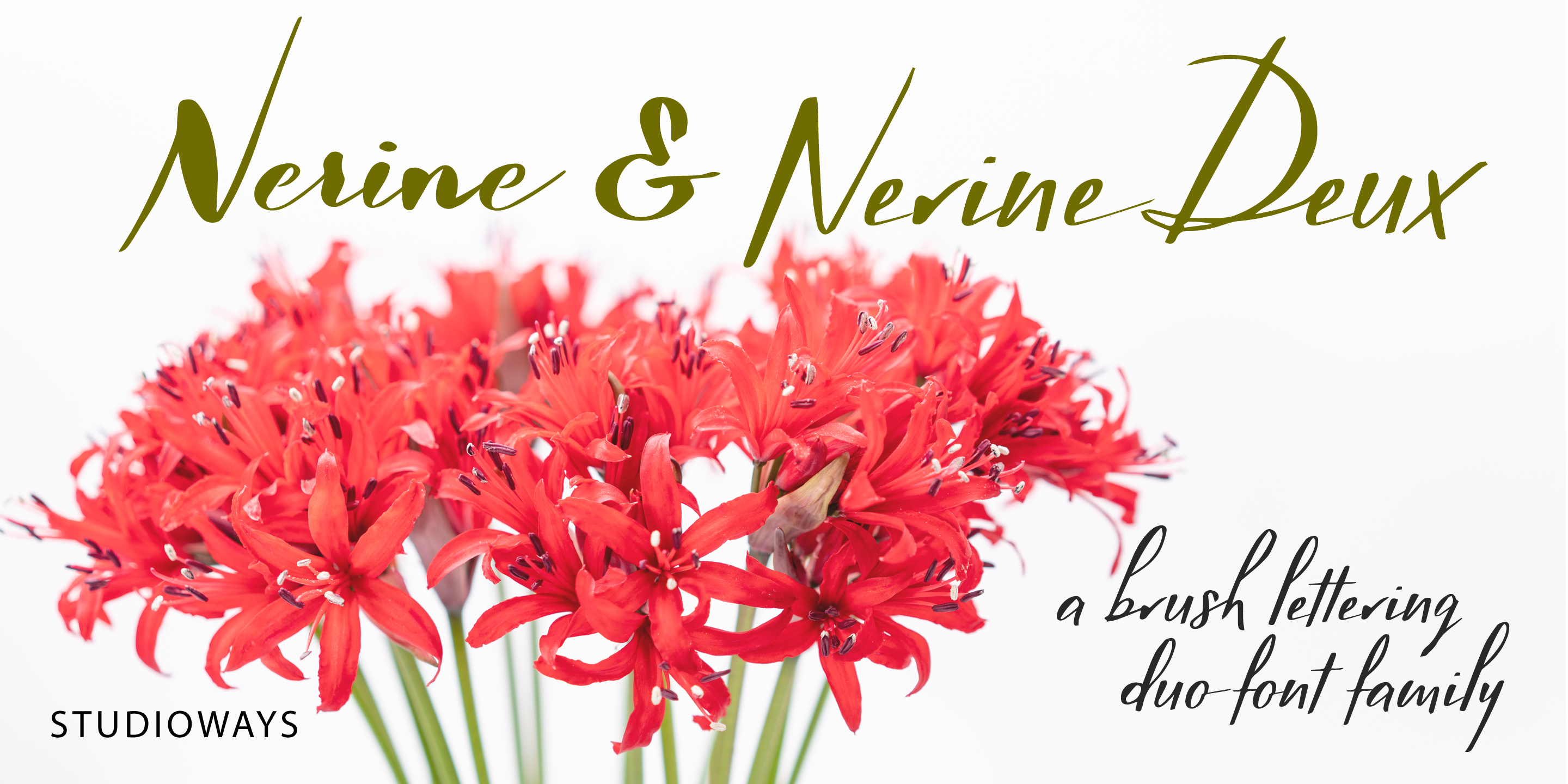
The Nerine Font Free Download is a graceful, handwritten script typeface perfect for wedding invitations, greeting cards, personal branding, boutique logos, and elegant packaging. Its smooth, flowing lines bring warmth and sophistication to your designs.
What makes the Nerine Font so exciting is its delicate balance between casual charm and refined elegance. This font adds a personal, authentic feel that makes your projects truly stand out.
The Nerine Font family includes Regular and Italic styles, offering flexibility to create expressive and dynamic typography.